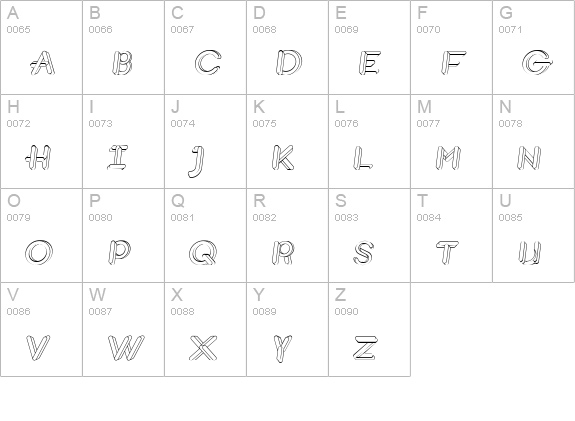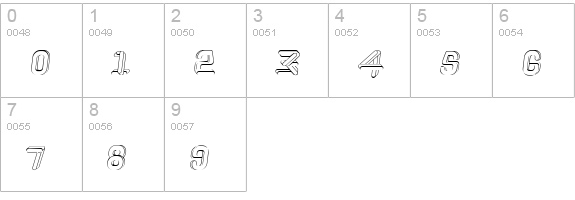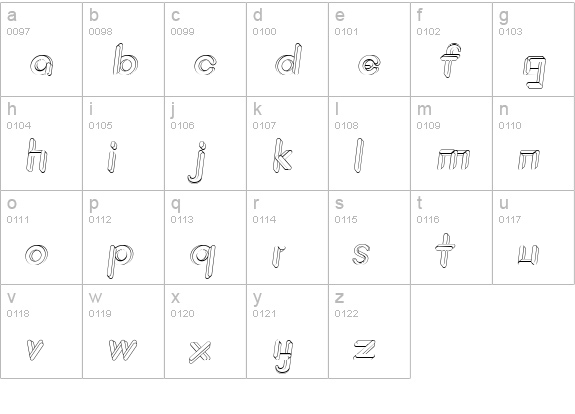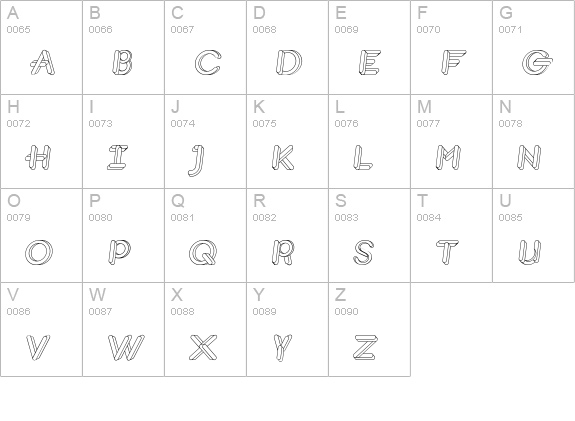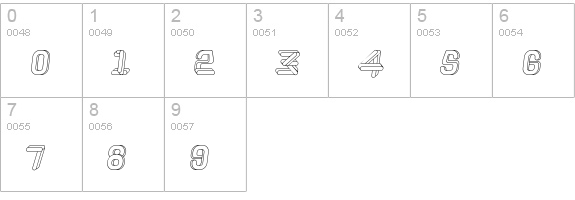
JohanVaaler Italic Font Details
JohanVaaler Italic is a distinctive, italic variant in the JohanVaaler typeface family \xE2\x80\x94 well suited to design and typography projects.
JohanVaaler Italic is a stunning and versatile font that exudes elegance and sophistication. With its unique and graceful letterforms, this font is perfect for adding a touch of class to any design project. Whether you are creating wedding invitations, branding materials, or editorial layouts, JohanVaaler Italic will elevate your work with its timeless beauty. This font effortlessly combines traditional elements with a modern twist, making it suitable for a wide range of design styles. Its fluid curves and delicate strokes add a sense of movement and grace, while the italicized structure lends a touch of sophistication and refinement. One of the best features of JohanVaaler Italic is that it is freely available to download at FontsMarket.com. Designed with the user's convenience in mind, this font ensures that creativity is accessible to everyone. With just a few clicks, you can download and start using JohanVaaler Italic in your projects, without any hassle or cost. Whether you are a professional designer or simply someone who appreciates the beauty of typography, JohanVaaler Italic is a must-have font in your collection. Its versatility and timeless appeal make it the perfect choice for any project, allowing you to create stunning designs that leave a lasting impression. Embrace the beauty of JohanVaaler Italic and let your creativity soar. Download it for free at FontsMarket.com and discover the endless possibilities it offers for your next design endeavor.